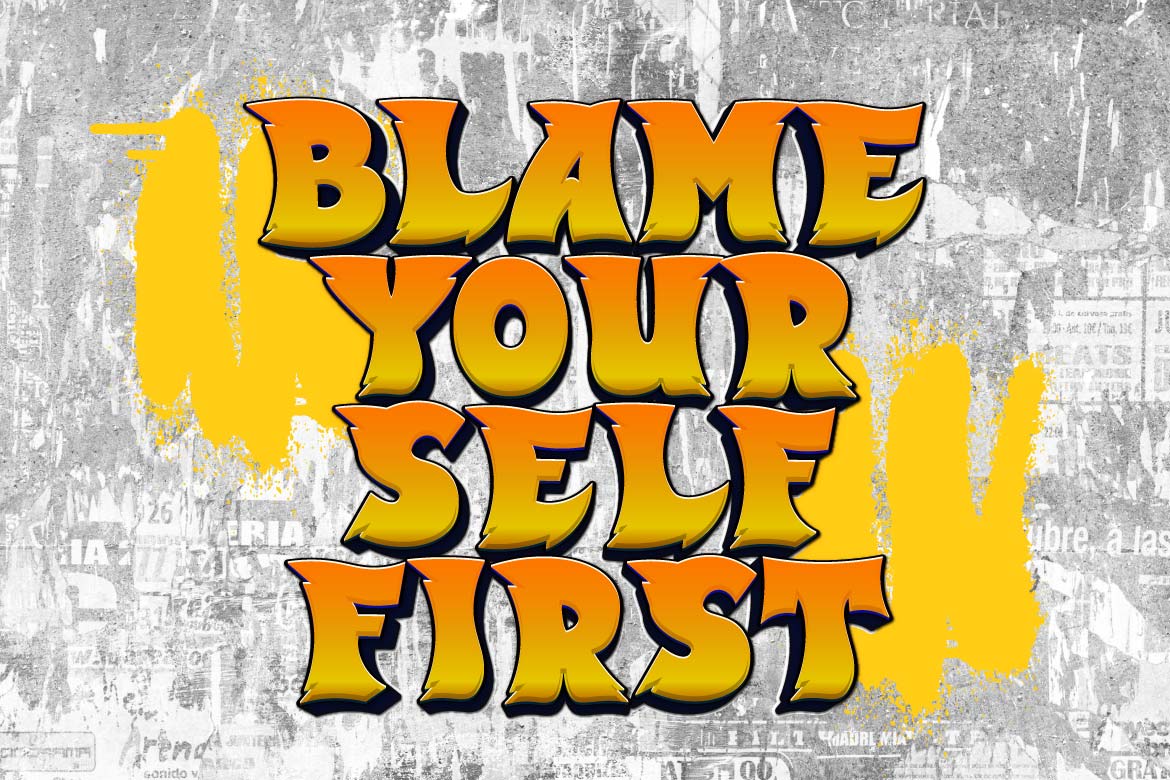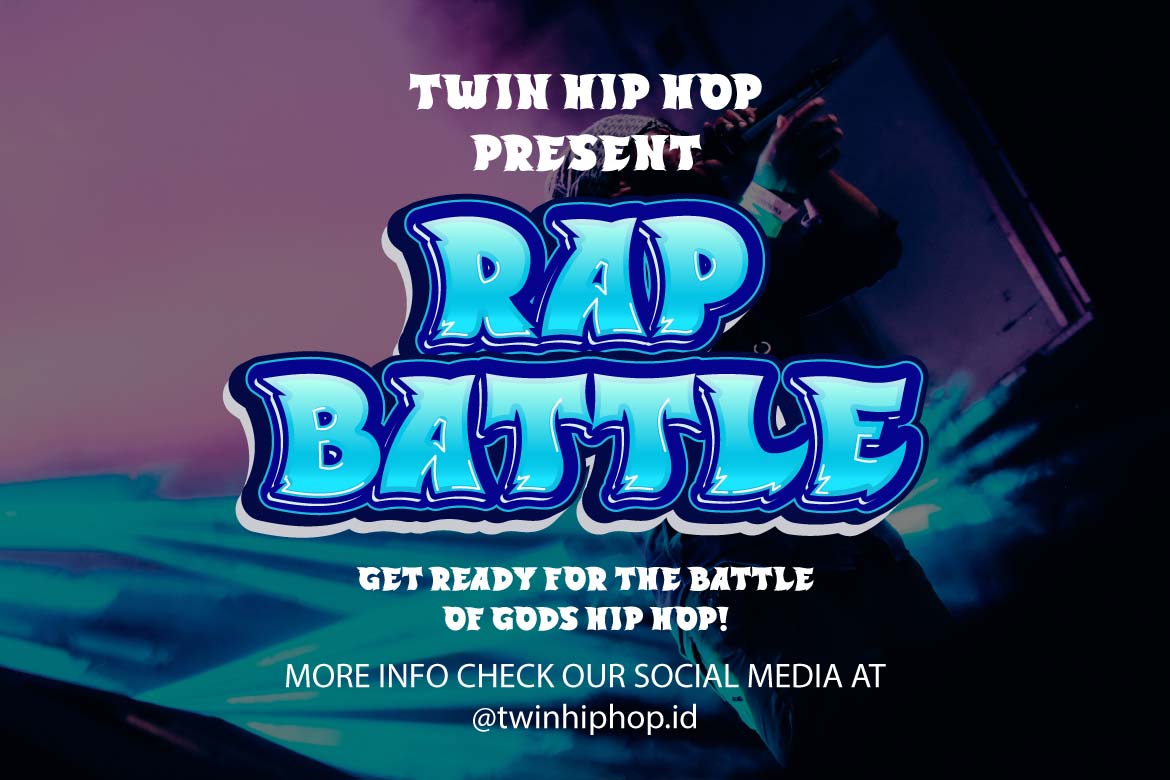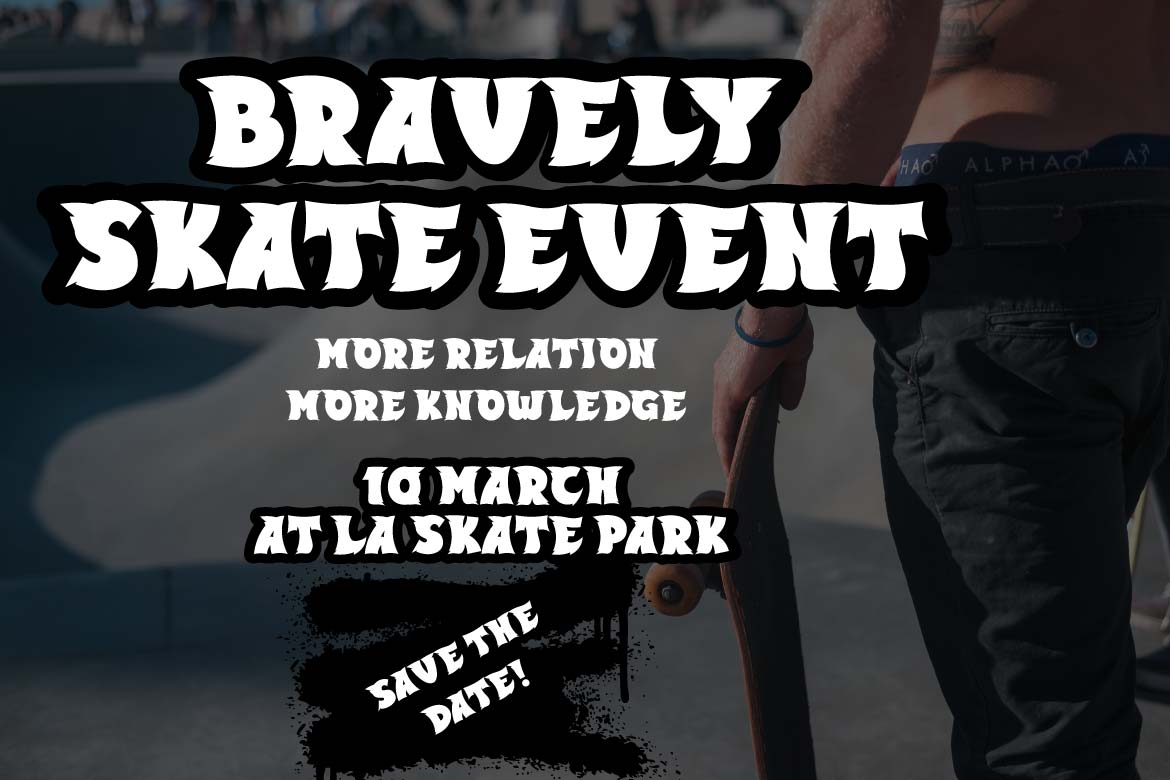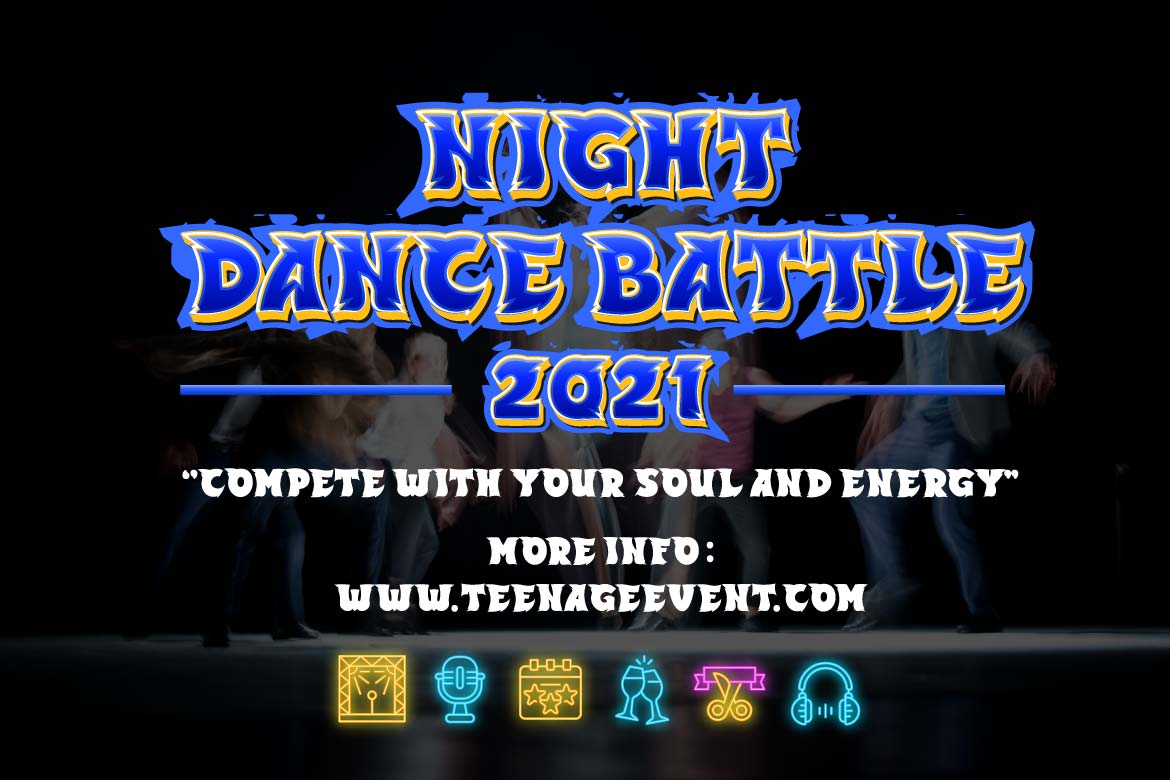
Gowes Font
Gowes Display Font
It’s a graffiti-themed display font, for your bold, forceful, and speedy projects. This font was created as a supporting element for your limitless creativity. If you use this typeface, your project will have a unique and distinctive design. Your visual presentation will pique the interest of your audience. If you utilize this typeface, all of your creations will be of good quality.
This graffiti font is great for product logos, poster titles, headlines, packaging, film titles, logotypes, gorgeous writing, and trendy graffiti designs, among other things.
Of course, if you utilize this font in your numerous creative projects, they will be perfect and outstanding.
Use this typeface right away for your one-of-a-kind and remarkable projects.